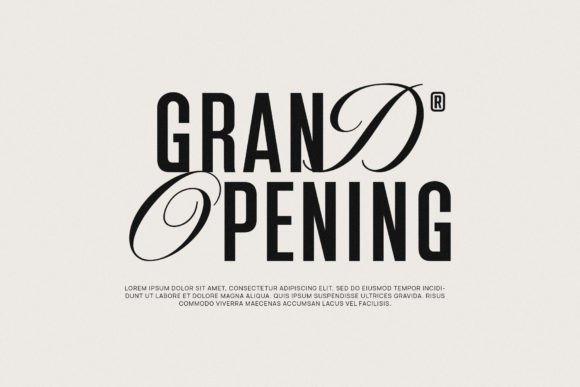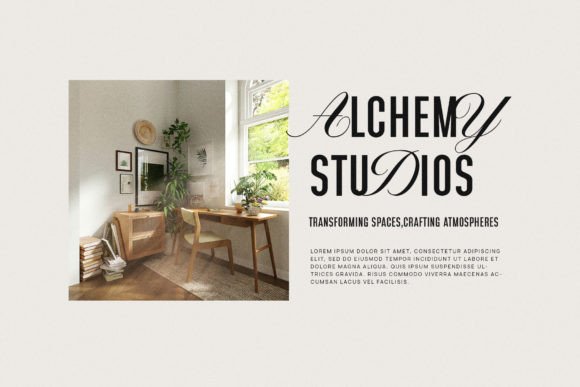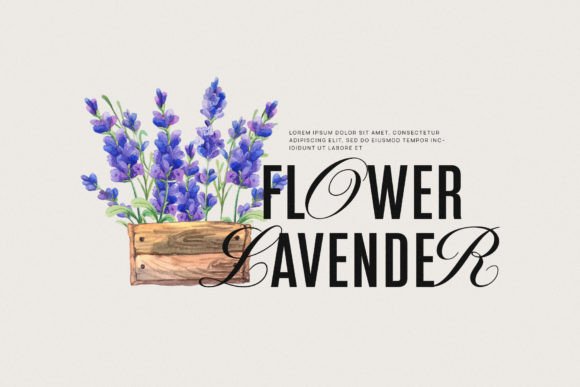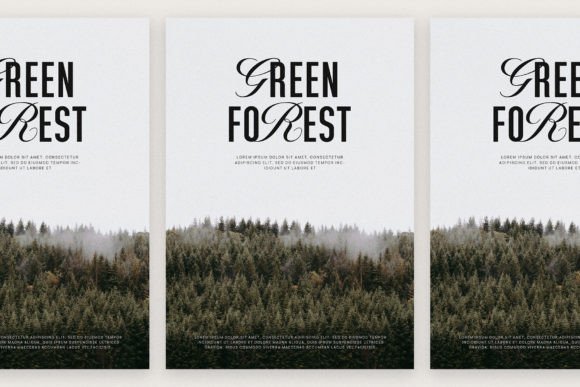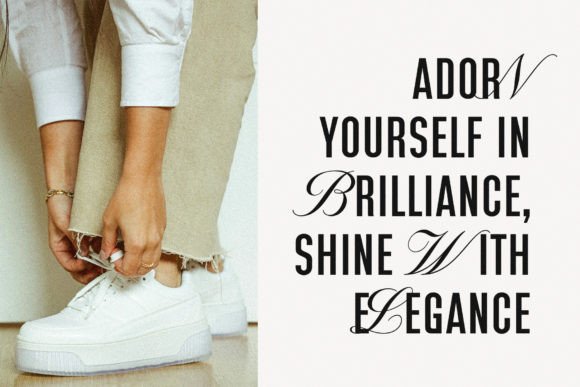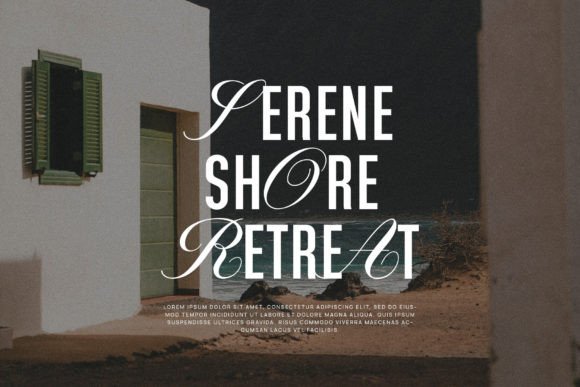
The Perfect Blend of Elegance and Sophistication: Glamer Font
Have you ever found yourself staring at a blank page, searching for the perfect font to bring your design to life? The cursor blinks, and your mind starts racing with possibilities. It’s in these moments of creative uncertainty that the right font can make all the difference. For designers, finding the perfect font is crucial to conveying the message and tone they intend to convey.
Enter Glamer Font, a serif font that beautifully combines modern style with a touch of classic sophistication. Its versatility makes it an ideal choice for a wide range of projects, from branding and logos to wedding designs and social media posts. Whether you’re looking to add an elegant touch to your product packaging or create a stunning invitation, Glamer Font is the perfect tool to have in your design arsenal.
- Font Family: Glamer Font is a sans-serif font family available in multiple weights, from Light to Bold, to cater to various design needs.
- Character Count: The font family includes over 200 glyphs, including Latin, Cyrillic, and Greek characters, making it suitable for multilingual designs.
- Unique Characteristics: Glamer Font features a unique, modern design with clean lines, geometric shapes, and a subtle flair at the terminals, making it perfect for contemporary designs.
Designer Review: Glamer Font
✨ I must say, the Glamer Font is quite impressive. It’s a bold, eye-catching font that’s perfect for making a statement. The designer has done a great job of creating a font that’s both elegant and modern. The font’s unique curves and lines give it a high-end feel that’s sure to elevate any design.
✨ The font’s versatility is also a major plus. It works well in both headings and body text, and it’s easy to see how it could be used in a variety of different design contexts. From logos to business cards to website headers, the Glamer Font is a great choice.
⚠️ One of the main limitations of the Glamer Font is its lack of flexibility in terms of font size. While it looks great at larger sizes, it can start to look a bit awkward at smaller sizes. This may limit its use in certain design contexts.
⚠️ Another potential issue is the font’s high contrast. While this can be a good thing in some cases, it can also make the font difficult to read in certain situations. For example, if the background is very bright, the font may become washed out.
Overall, I’m very impressed with the Glamer Font. While it may have some limitations, its unique style and versatility make it a great choice for designers looking to add some extra flair to their designs.
Recommendation
If you’re looking for a bold, eye-catching font that’s perfect for making a statement, the Glamer Font is definitely worth considering. Just be sure to test it out in different contexts to see how it looks.
Recommendations for Improvement
- Consider adding more font sizes to increase flexibility.
- Explore ways to reduce the high contrast of the font.
Glamer Font is ideal for:
- Creating eye-catching headlines and titles.
- Designing luxury branding and packaging materials.
- Adding a touch of sophistication to digital and print materials.
For the best results, use Glamer Font in conjunction with bold colors and high-contrast backgrounds.